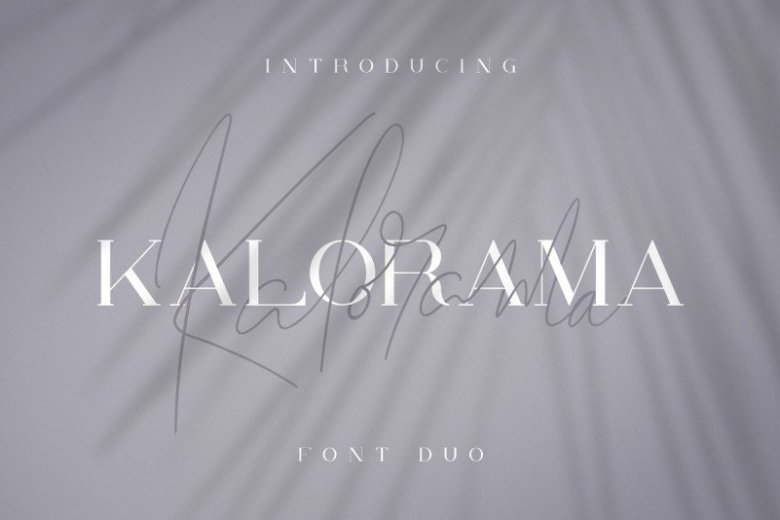
Kalorama Font Duo
Introducing Kalorama Serif. This is an elegant serif font of a classic style that has been modernized with unique curves and cut-ins making it one of the most memorable top fonts on the market. It is was designed by VPcreativeshop. It’s clean, modern typeface with serif ( regular and outline ) and script versions, ligatures and multilingual support. It’s a very versatile font that works great in large and small sizes. Kalorama Serif is perfect for branding projects, home-ware designs, product packaging, magazine headers – or simply as a stylish text overlay to any background image.